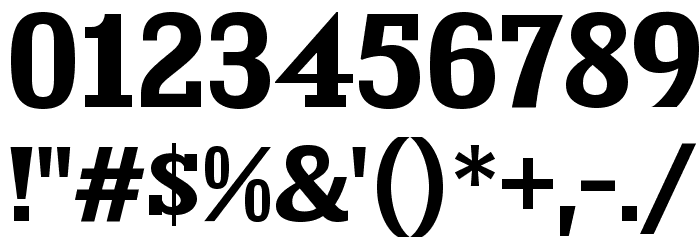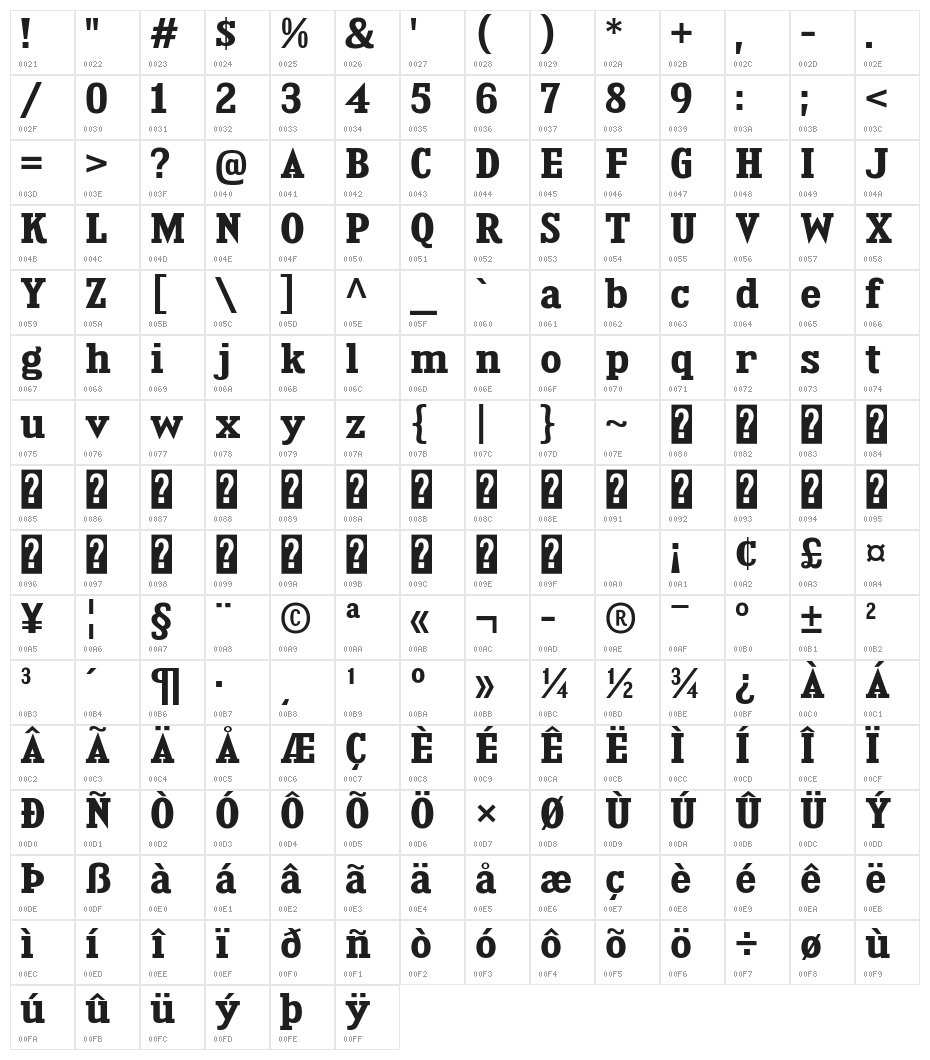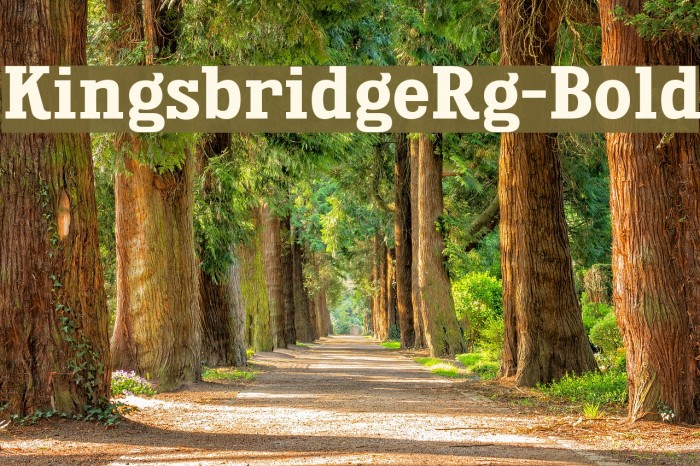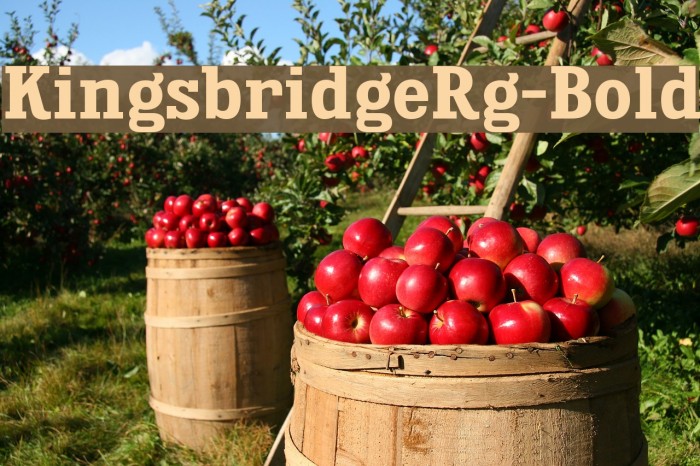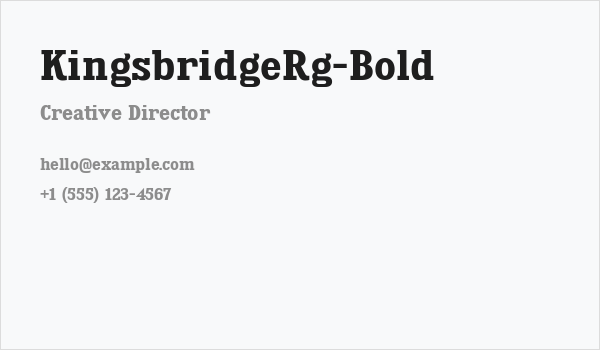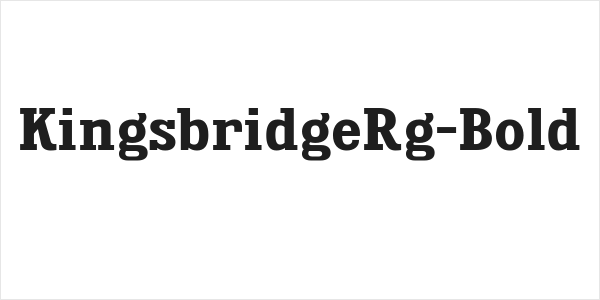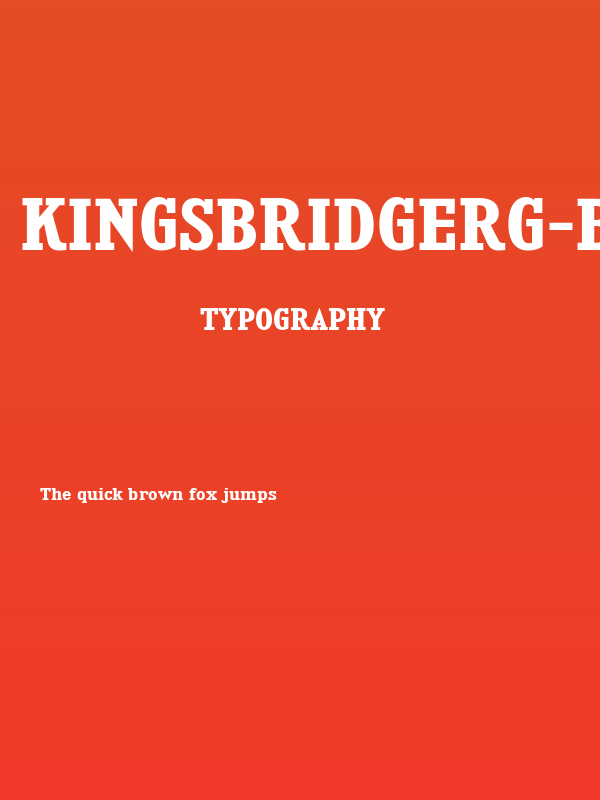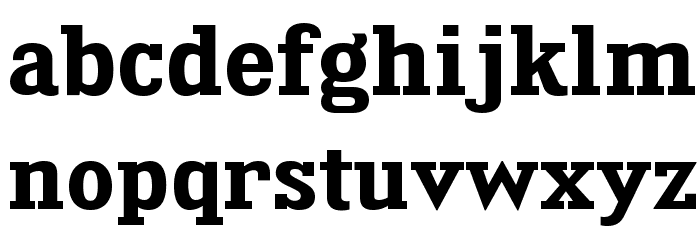
KingsbridgeRg-Bold Font
KingsbridgeRg-Bold Description
This font exhibits a bold and robust character with strong, thick strokes that convey a sense of authority and confidence. The serifs are pronounced, adding a classic touch to its overall appearance. The uppercase letters are particularly striking, with a uniform height and width that ensure readability and impact. The lowercase letters maintain a consistent style, complementing the uppercase with a slightly more compact form. Numbers are clear and distinct, making them suitable for various applications. The special characters are well-defined, enhancing the font's versatility.
| Proposed Projects | This font is perfect for headlines, posters, branding, and any project requiring a strong, authoritative presence. |